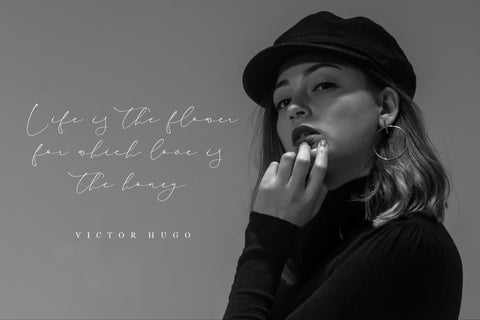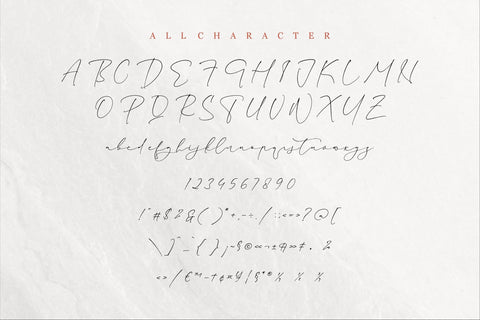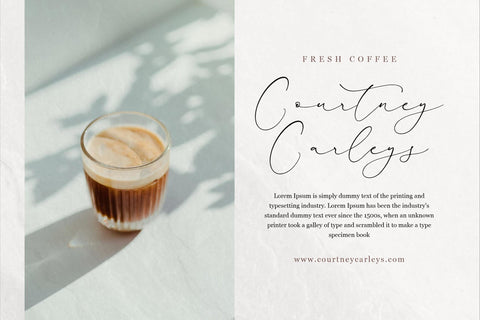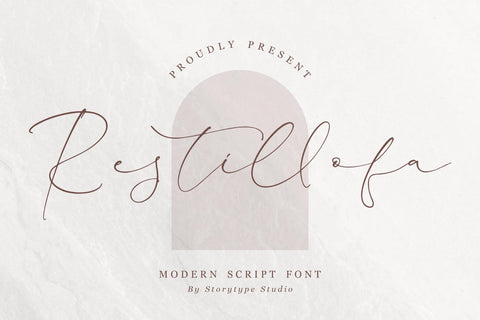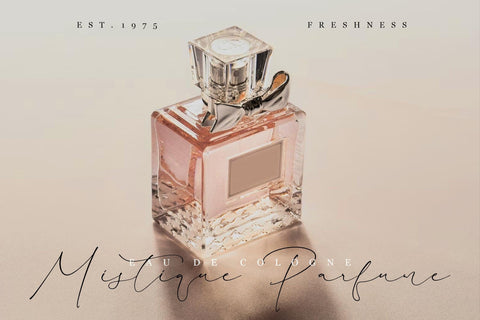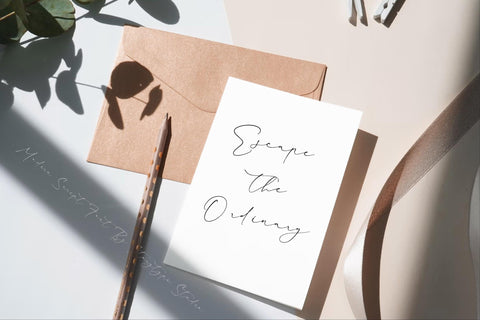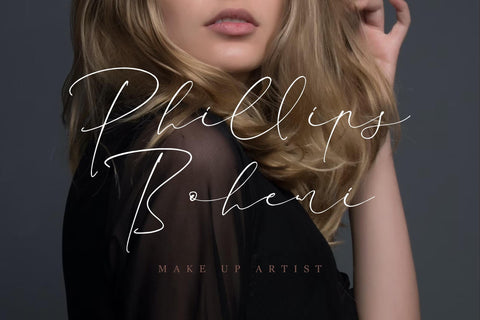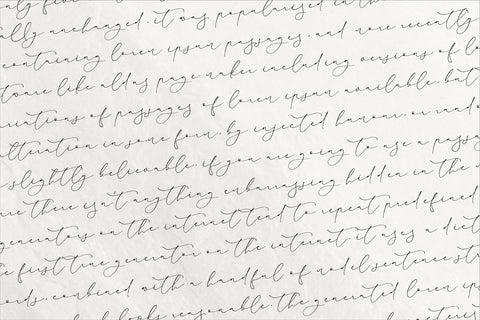
Restillofa - Modern Script Font
Proudly present Restillofa - Modern Script Font , created by Storytype,
A luxury script that has own unique style & modern look.